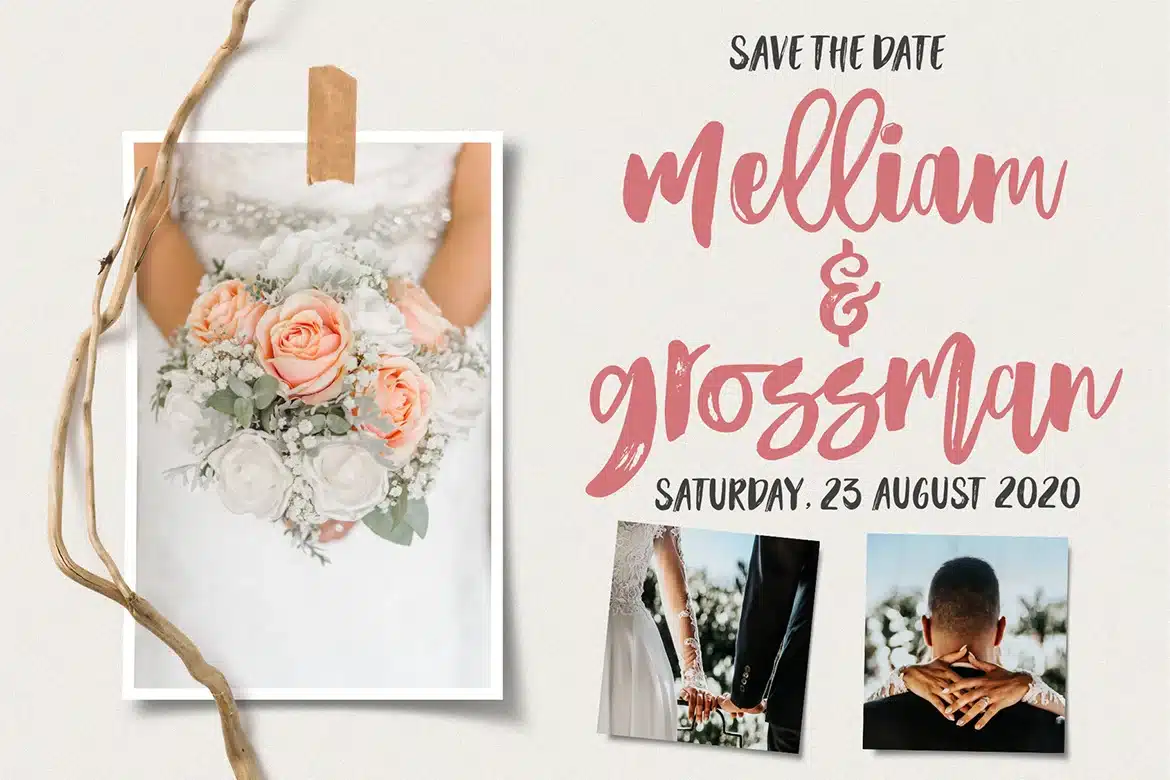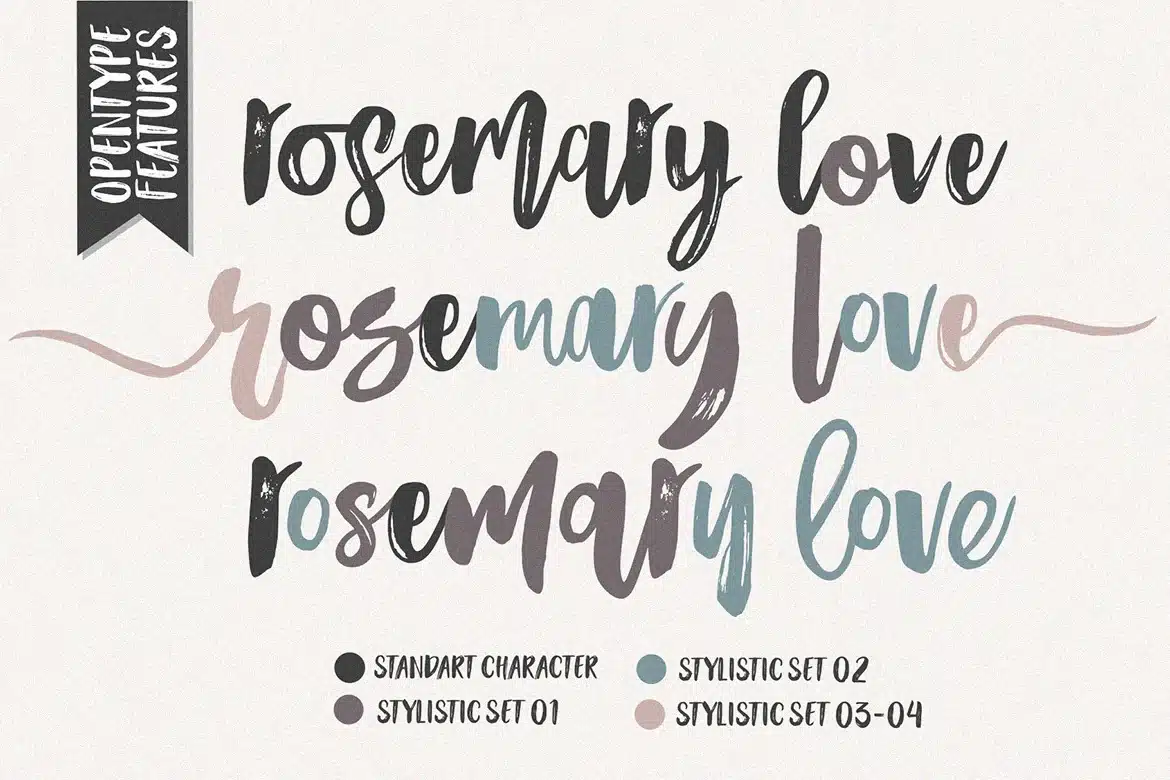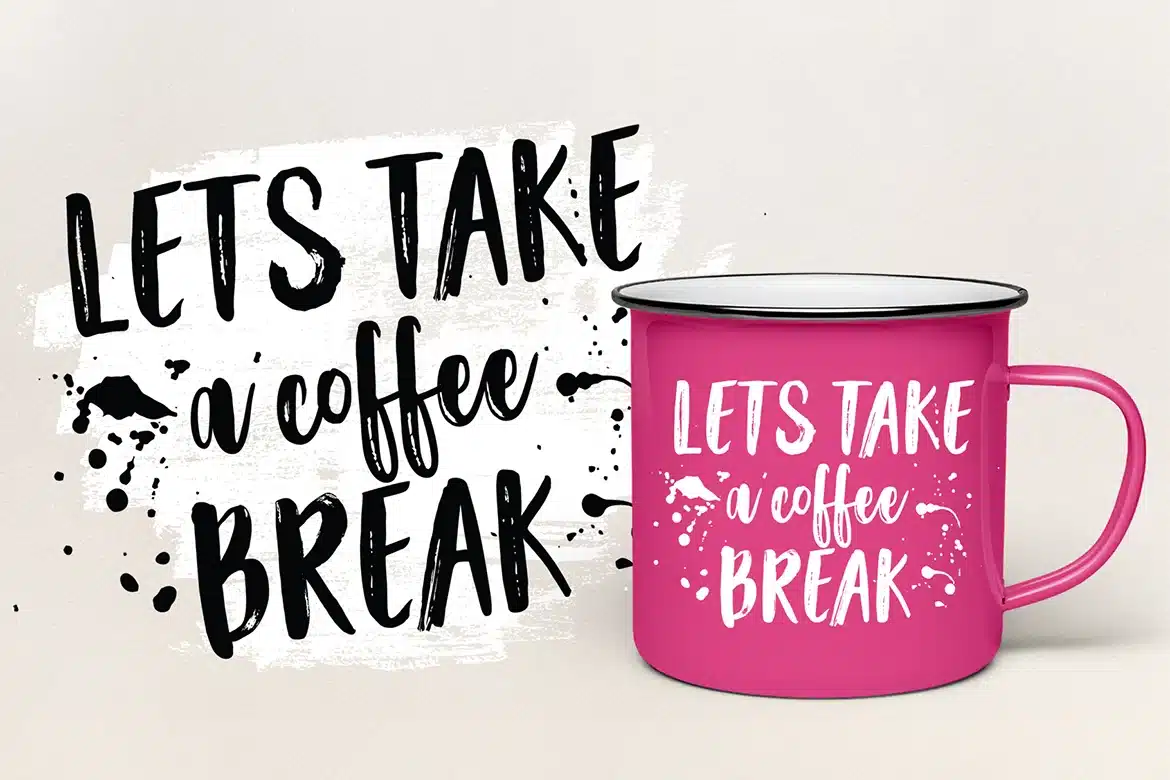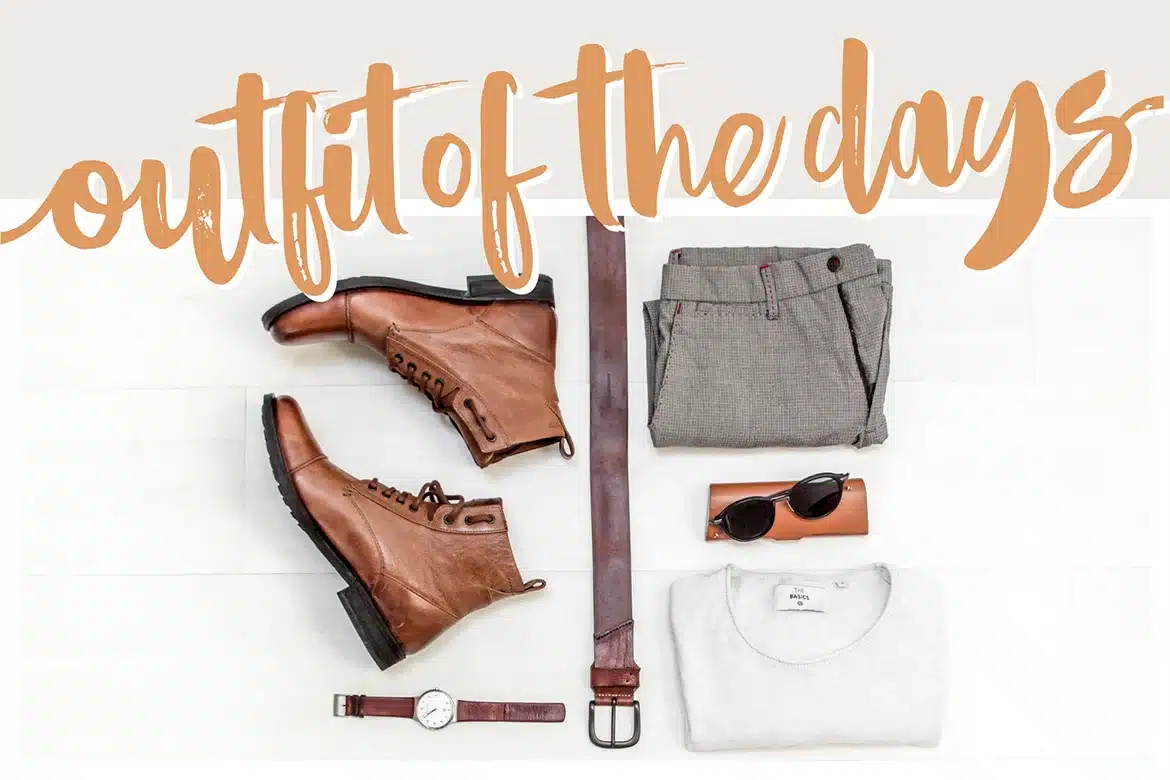
Rosemary Love Script Font
Rosemary Love is a modern brush font. Every single letter has been crafted with love to make your text look beautiful.
Rosemary Love is perfect for invitation cards, business cards, inspirational quotes, posters, blog headers, wedding design, packaging, wall art, custom printables and a lot more! ohh...there is one more thing when you open this zip box file, brush stroke pack is yours to..